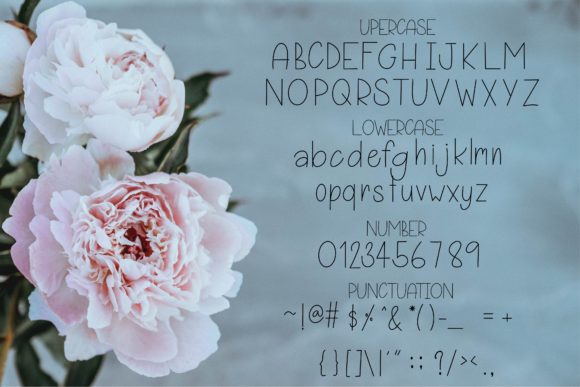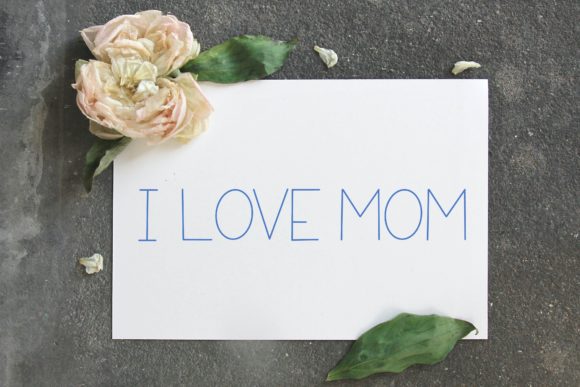
Discover the Delightful Happy Mama Font: A Cute Handwritten Style for Your Designs
Are you on the hunt for a font that exudes warmth, friendliness, and a touch of playfulness? Look no further than the Happy Mama font! This adorable handwritten font is sure to capture the hearts of designers, crafters, and anyone looking to add a personal touch to their projects. With its casual charm and down-to-earth feel, Happy Mama is an incredibly versatile font that can be used in a wide range of contexts.
The Characteristics of Happy Mama Font
So, what makes Happy Mama font so special? For starters, its handwritten style gives it a unique, organic feel that’s perfect for creating a sense of warmth and approachability. The casual charm of this font makes it appear wonderfully down-to-earth, allowing your designs to connect with your audience on a more personal level.
Another notable feature of Happy Mama font is its readability. Even at smaller sizes, this font remains clear and easy to read, making it perfect for use in a variety of applications, from body text to headlines. And with its clean lines and simple shapes, Happy Mama font can be used on busy backgrounds or as a standalone headline, making it incredibly versatile.
Uses for Happy Mama Font
So, how can you use Happy Mama font in your designs? The possibilities are endless! Here are a few ideas to get you started:
- Invitations and Announcements: Use Happy Mama font to create custom invitations, party announcements, and other celebratory materials that require a personal touch.
- Branding and Packaging: Add a touch of warmth and friendliness to your brand with Happy Mama font. This font is perfect for use on product labels, packaging, and marketing materials.
- Blogging and Social Media: Use Happy Mama font to create eye-catching blog posts, social media graphics, and other online content that requires a personal touch.
- Crafting and DIY Projects: Happy Mama font is perfect for crafters and DIY enthusiasts who want to add a personal touch to their projects, from handmade cards to customized home decor.
Why Choose Happy Mama Font?
With so many fonts to choose from, why should you choose Happy Mama font for your next project? Here are just a few reasons:
- Unique and Eye-Catching: Happy Mama font is a one-of-a-kind font that will help your designs stand out from the crowd.
- Easy to Read: This font is incredibly readable, even at smaller sizes, making it perfect for use in a variety of applications.
- Versatile: Happy Mama font can be used in a wide range of contexts, from busy backgrounds to standalone headlines.
- Personal Touch: This font adds a personal touch to your designs, making them feel more approachable and relatable.
In conclusion, Happy Mama font is a delightful handwritten font that’s sure to capture the hearts of designers, crafters, and anyone looking to add a personal touch to their projects. With its casual charm, readability, and versatility, this font is perfect for use in a wide range of contexts. Whether you’re creating invitations, branding materials, or social media graphics, Happy Mama font is sure to bring a touch of warmth and friendliness to your designs.